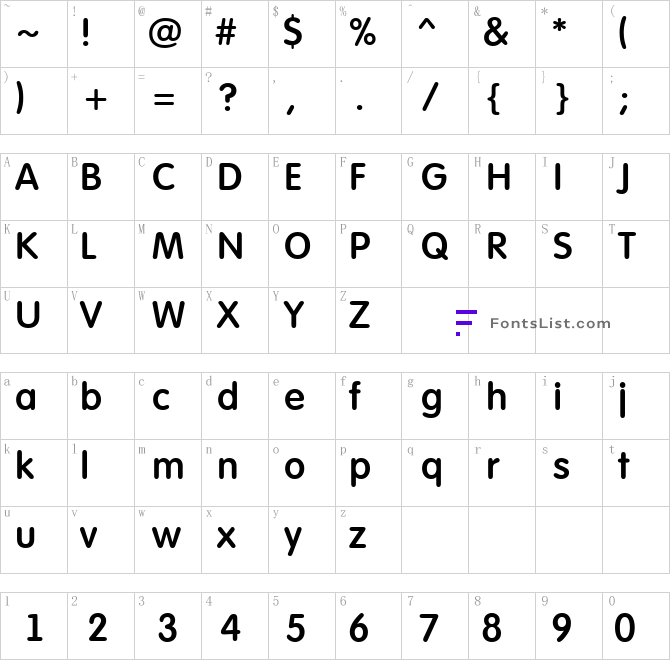
a_FuturaRoundDemi.ttf is a very beautiful artistic font, a_FuturaRoundDemi.ttf is widely used in the design and printing of various books and pictures,a_FuturaRoundDemi.ttf has a strong visual impact,a_FuturaRoundDemi.ttf is a commonly used font in newspapers, magazines and books, and is used in posters, e-commerce Poster design, store design, logo design, font design and other fields.a_FuturaRoundDemi.